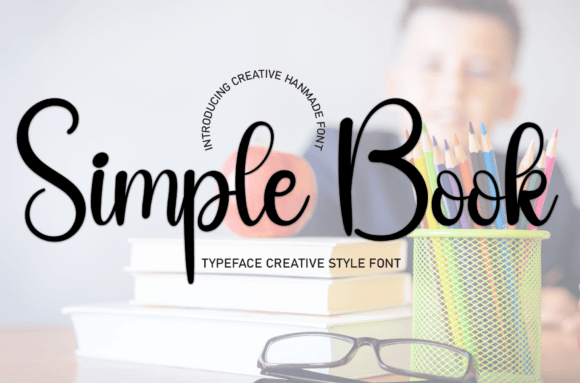
About Simple Book
Simple Book is a sweet handwritten font. Friendly and cute, this font is ideal for writing wedding invitations, cards, or any other design that might need a fun touch!